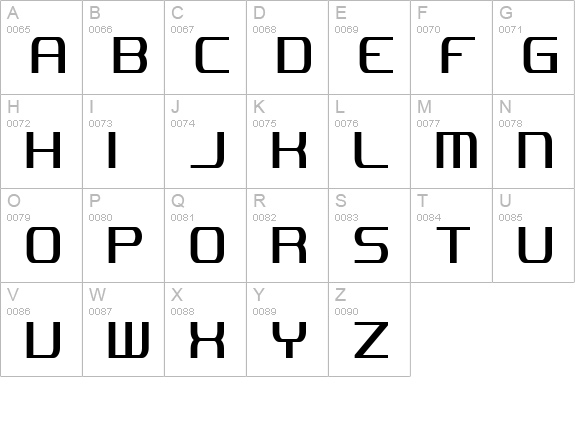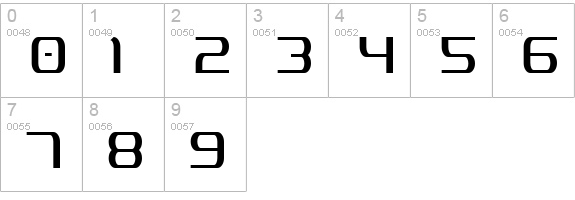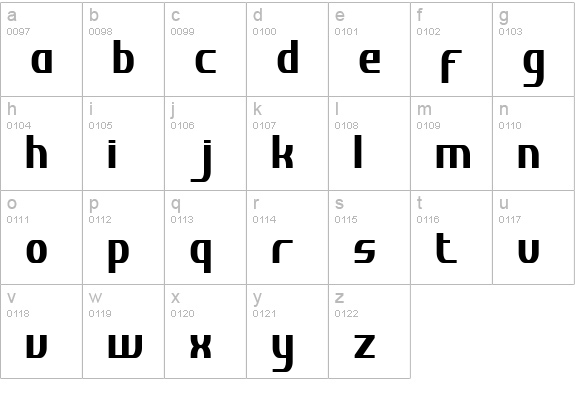
JH_Digital Nominal Font Details
Introducing JH_Digital Nominal, a sleek and contemporary font that effortlessly combines modernity with simplicity. Designed for the digital nomads of today, this font exudes an air of sophistication and versatility, making it perfect for a wide range of creative projects. With its clean lines and balanced proportions, JH_Digital Nominal is not only visually appealing but also highly legible, ensuring that your message is conveyed with clarity and precision. Whether used for branding, graphic design, advertising, or even personal projects, this font effortlessly captures attention and leaves a lasting impression. One of the best aspects of JH_Digital Nominal is that it is completely free. That's right, you can now elevate your designs without breaking the bank. This font is freely available to download at FontsMarket.com, where you can access it in a matter of seconds and start incorporating it into your projects right away. With JH_Digital Nominal, you are not only getting a high-quality font, but also the freedom to express your creativity without any financial limitations. So why wait? Download JH_Digital Nominal now and unlock a world of design possibilities.